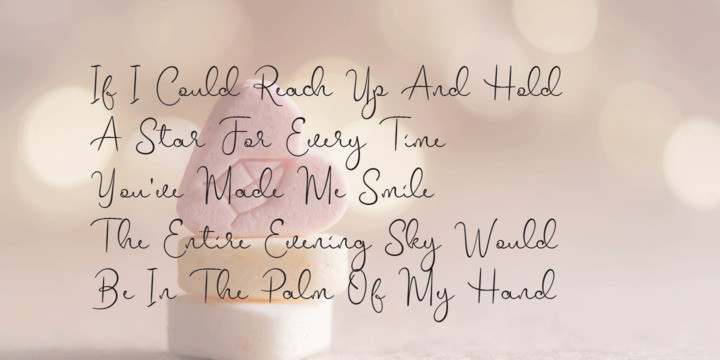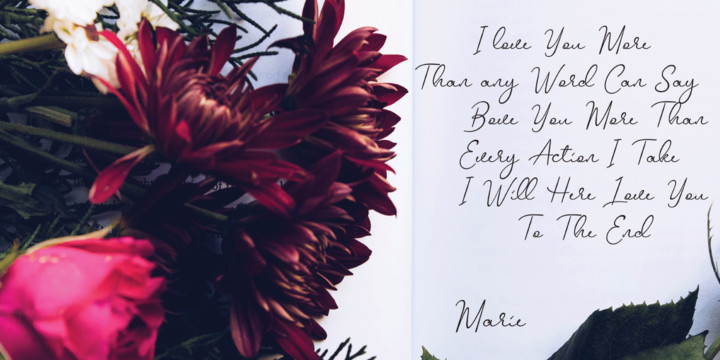
Atomic Kittens Font
Atomic Kittens Font is a condensed handwritten display font. With regular mono-line stroke, fun character with some of ligatures. To give you an extra creative work. Atomic Kittens font support multilingual more than 100+ language. This font is good for logo design, Social media, Movie Titles, Books Titles, a short text even a long text letter and good for your secondary text font with sans or serif. Make a stunning work with Atomic Kittens font.